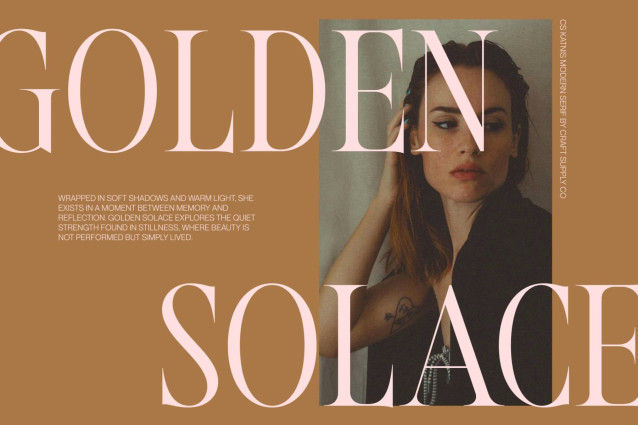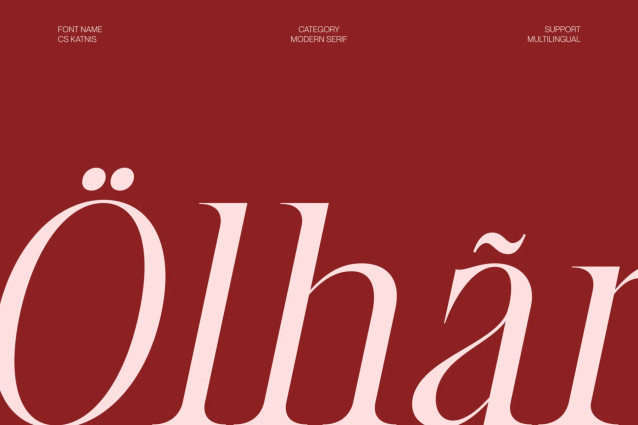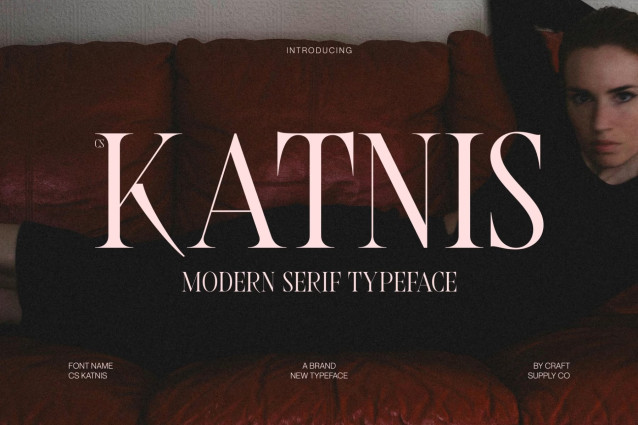
CS Katnis – Modern Serif with Sharp Luxurious Character
Modern Serif with Contemporary Elegance
This is a modern serif font that combines contemporary sophistication with a luxurious presence. Designed with refined proportions and sharp-edged details, this typeface creates a striking visual identity that feels confident, stylish, and distinctly modern. It is crafted for designers who seek typography that balances elegance with strength.
Sharp Edges with Bold Personality
The defining feature of this font lies in its sharp serif details and precise letterforms. These crisp edges add a sense of authority and visual impact, giving the font a strong and memorable character. The combination of structured forms and elegant styling creates a sophisticated aesthetic that feels both premium and expressive.
Luxury Appeal with Contemporary Style
This font blends timeless serif refinement with a modern design approach, resulting in a typeface that feels luxurious yet highly relevant for contemporary projects. Its balanced contrast and clean construction ensure readability while maintaining a distinctive high-end appearance. This harmony makes the font ideal for designs that require both elegance and confidence.